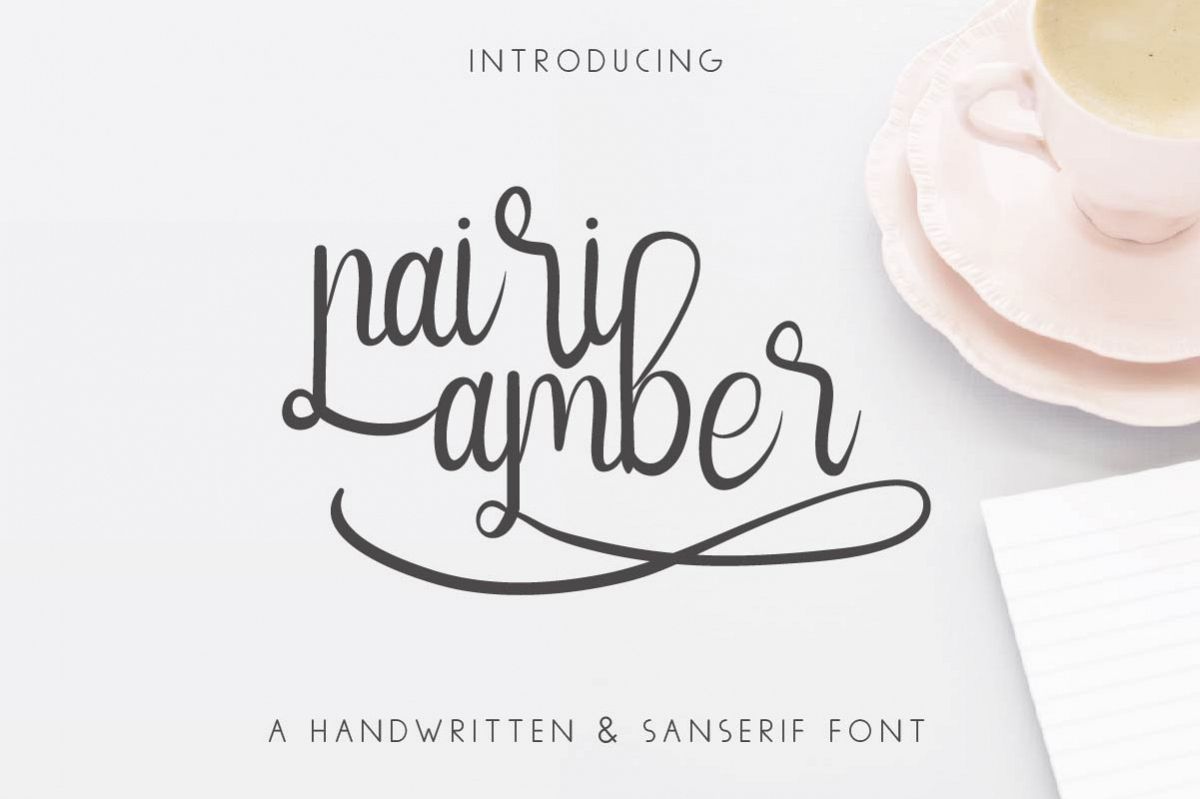
NairiAmber
Whats up Everyone! Please meet our newest font : NairiAmber ! This is a new font duo with Sans serif and a fancy script. The font is modern script handwriting feminine style font.This font family has a unique, elegant, natural and stylish glyph. Will be perfect for any handwritten needed project. Or Sans Typeface project. Great for merchandising, photography, watermark, festival, branding, logo, stationery, business card, signage, flyer, brochure etc. There are many industries that is suitable for this font : construction, real estate, services, law firm, wedding, florist, music, singer, dancer, dentist, hair stylish, makeup artist, celebrity manager, etc. It is so elegant, classy, strong and beautiful.This font will Work on PC & Mac with Simple installations. Accessible in the Adobe Illustrator, Adobe Photoshop, Adobe InDesign, even work on Microsoft Word. It’s also PUA Encoded Characters – Fully accessible without additional design software.Purchase with confidence! =)